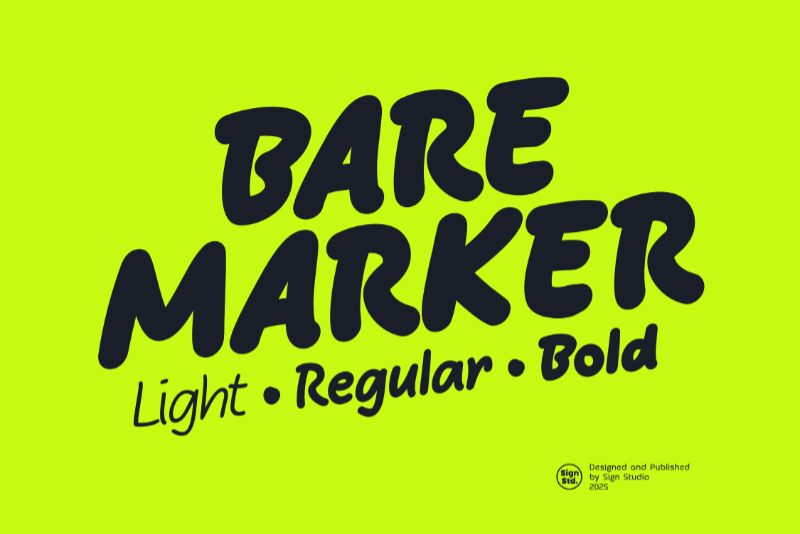
Bare Marker Light
Bare Marker Light font by Sign Studio is a light handwritten display font inspired by comic book art. Its letters feel casual and friendly, as if written with a marker, with an organic flow and modern touch to make its audience more approachable. Perfectly suitable for use on both print or digital design projects.
Examples include comic books, illustrated books, children’s stories, posters, T-shirts and other merch designs, branding and packaging projects for foodstuffs or similar products. Use this free unique font in logos as a standalone typeface or paired with others for balance.